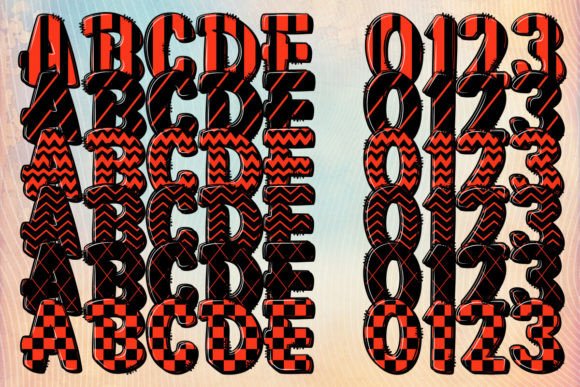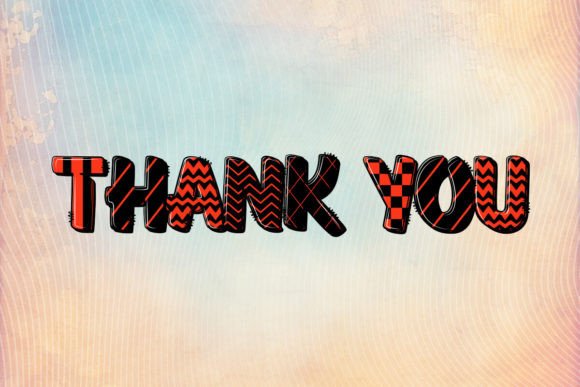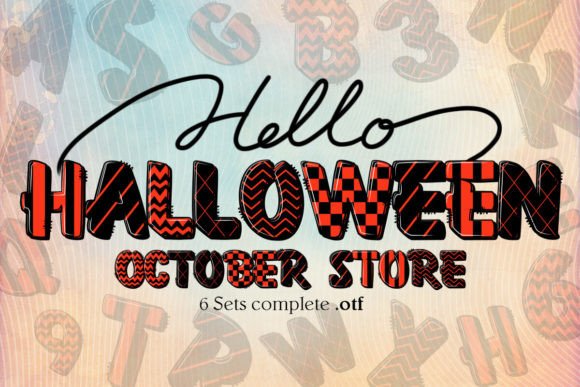
Introducing Halloween Font: A Spook-tacular Addition to Your Design Arsenal
Are you ready to add a dash of whimsy and charm to your DIY craft projects, custom designs, and Halloween-themed artwork? Look no further than the Halloween Font, a vibrant and playful color font theme that’s sure to cast a spell on your audience. This fantastic font seamlessly blends the groovy, retro essence of the 60s with a fun, cute, and sweet retro color palette, making it the perfect choice for designers, crafters, and artists of all levels.
What Makes Halloween Font So Special?
The Halloween Font is more than just a font – it’s an experience. With its unique blend of retro style and modern charm, this font is sure to elevate your designs and make them stand out from the crowd. Whether you’re working on custom DIY craft projects, personalizing names, creating sublimations, or designing eye-catching posters, the Halloween Font is the ideal choice to add a touch of magic to your artwork.
With the Halloween Font, the design possibilities are endless. Here are just a few ideas to get you started:
- Create custom Halloween-themed posters, flyers, and invitations
- Design personalized names and titles for your DIY craft projects
- Make stunning sublimations for t-shirts, mugs, and other products
- Add a touch of whimsy to your social media graphics and blog posts
Tips and Tricks for Using Halloween Font
To get the most out of the Halloween Font, here are a few tips and tricks to keep in mind:
- Experiment with different colors and combinations to find the perfect look for your design
- Use the font in conjunction with other design elements, like patterns and graphics, to create a unique and eye-catching design
- Don’t be afraid to get creative and try out new and unusual design ideas
In conclusion, the Halloween Font is a fantastic addition to any designer’s arsenal. With its unique blend of retro style and modern charm, this font is sure to add a touch of magic to your designs and make them stand out from the crowd. Whether you’re a seasoned designer or a crafty DIY enthusiast, the Halloween Font is the perfect choice for anyone looking to create spook-tacular designs that will leave a lasting impression.